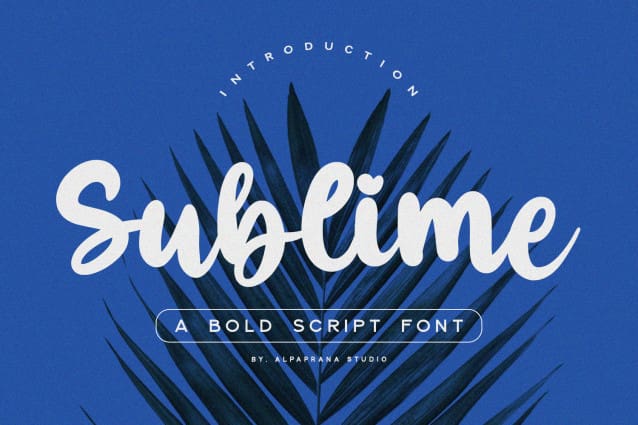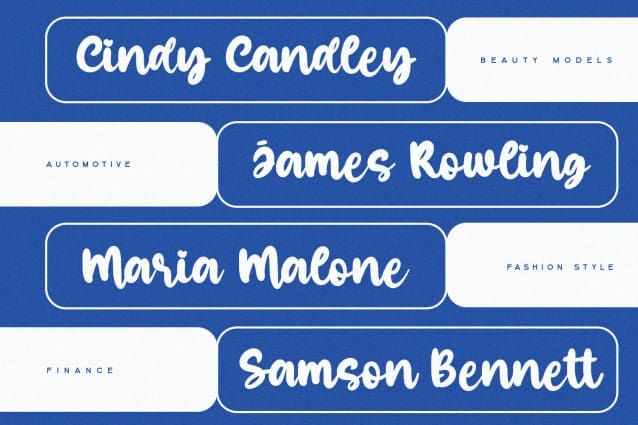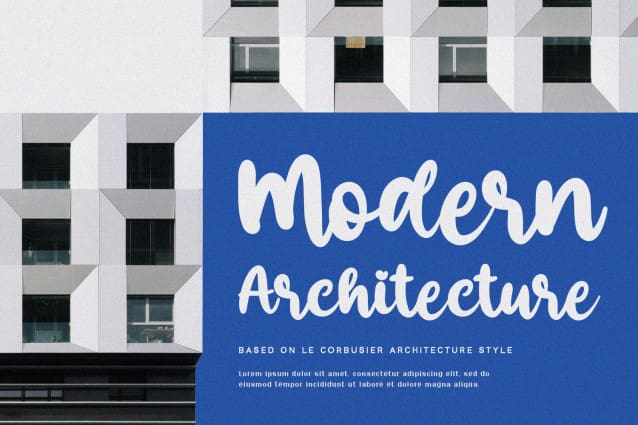
Sublime Script Font
Sublime Script Font is a bold script font with elegant and modern feels. It will be perfectly used for Branding, Logo Design, Lettering, Logotype, Clothing, Poster, magazine, packaging, posters, shopping bags, t-shirts, book covers, photography, special events and other design project.